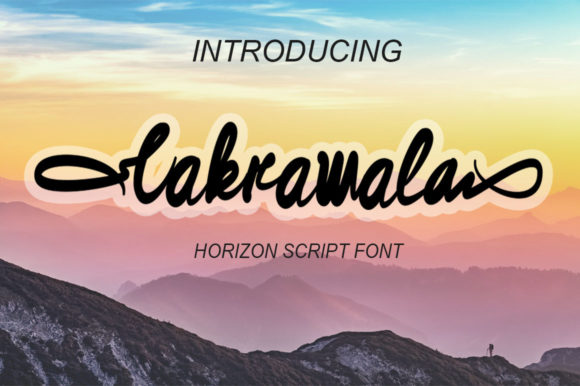
Cakrawala Font: Elevate Your Designs with a Timeless Vintage Script
In the world of typography, fonts play a crucial role in conveying the tone and personality of a brand or design. Among the numerous fonts available, Cakrawala stands out as a beautiful, well-balanced, and vintage-styled script font. Its smooth curves and elegant appearance make it an ideal choice for fashion branding, editorial designs, and various other creative projects. In this article, we’ll delve into the features and benefits of Cakrawala Font, exploring how it can elevate your designs and help you achieve your creative goals.
What is Cakrawala Font?
Cakrawala is a vintage-styled script font that exudes elegance and sophistication. Its name is derived from the Indonesian word for “sky” or “heaven,” which reflects the font’s airy and refined feel. Cakrawala is designed to be versatile, making it suitable for a wide range of applications, from fashion branding and editorial designs to packaging and advertising.
One of the standout features of Cakrawala is its smooth, flowing curves, which give it a timeless and classic appearance. The font’s curves are carefully crafted to create a sense of movement and fluidity, making it perfect for designs that require a touch of elegance and sophistication.
Key Features of Cakrawala Font
- Vintage Style: Cakrawala’s vintage style is reminiscent of classic script fonts from the early 20th century. Its elegant appearance and smooth curves evoke a sense of nostalgia and sophistication, making it perfect for designs that require a touch of classic elegance.
- Well-Balanced: Cakrawala is a well-balanced font, with carefully crafted letterforms that work harmoniously together. This balance ensures that the font remains legible and visually appealing, even at smaller sizes.
- Fashion Branding: Cakrawala is an excellent choice for fashion branding, as its elegant appearance and sophisticated feel align perfectly with the fashion industry’s aesthetic.
- Editorial Designs: The font’s classic style and smooth curves make it an excellent choice for editorial designs, such as magazine articles, book titles, and advertising copy.
Benefits of Using Cakrawala Font
Cakrawala offers numerous benefits for designers, marketers, and businesses looking to elevate their designs. Some of the key benefits include:
- Elegance and Sophistication: Cakrawala adds a touch of elegance and sophistication to any design, making it perfect for high-end brands and luxury products.
- Versatility: The font’s versatility ensures that it can be used across various design applications, from fashion branding to editorial designs.
- Legibility: Cakrawala’s well-balanced design and smooth curves ensure that it remains legible, even at smaller sizes.
- Experiment with Swashes: The font’s PUA encoding allows you to access a range of swashes and glyphs. Experiment with these to add a touch of elegance and sophistication to your design.
- Use it for Headings and Titles: Cakrawala is perfect for headings and titles, as its elegant appearance and smooth curves make it highly legible and visually appealing.
- Adjust Font Size and Color: Experiment with different font sizes and colors to find the perfect combination for your design.
Cakrawala Font is a beautiful, well-balanced, and vintage-styled script font that offers a range of benefits for designers, marketers, and businesses. Its smooth curves, elegant appearance, and PUA encoding make it an excellent choice for fashion branding, editorial designs, and various other creative projects. With its versatility, legibility, and creative control, Cakrawala is an excellent addition to any design arsenal.